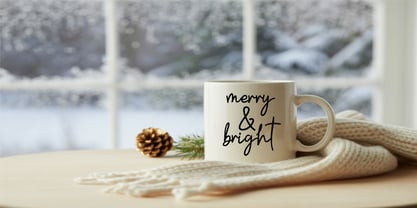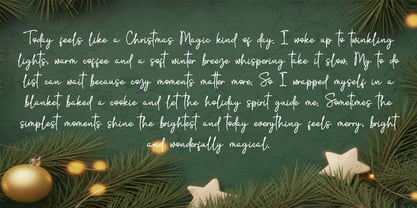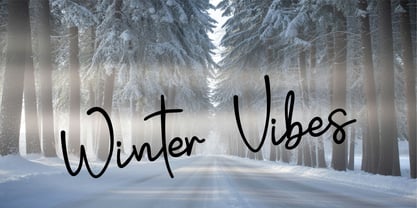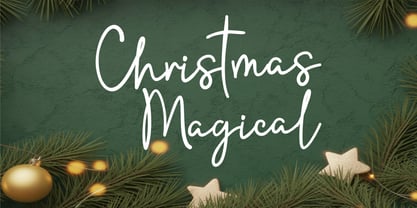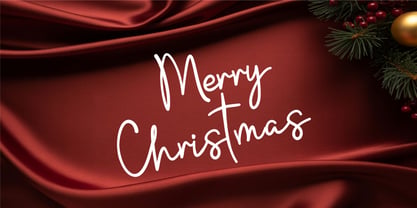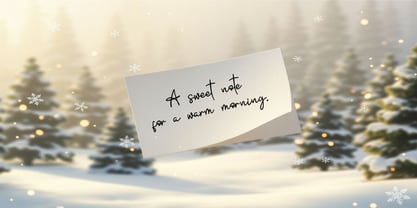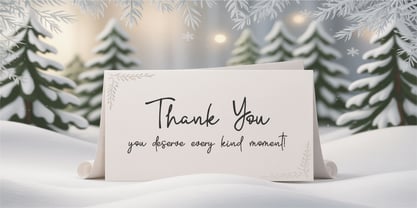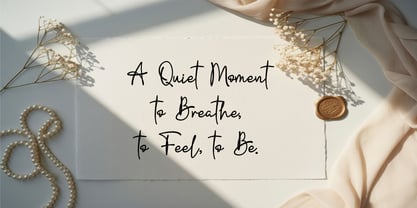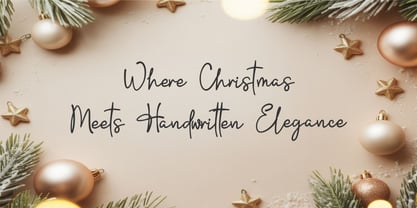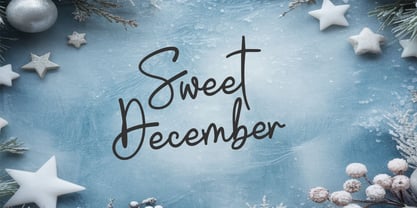
Christmas Magical
The Christmas Magical Font Family was designed by Tony Balios and published by Tonis Art Studio. Christmas Magical contains 1 styles. More about this family
Christmas Magical is a warm handwritten script that captures the charm, softness, and cozy elegance of the holiday season. Its tall, flowing lines and natural strokes create a handwritten look that feels personal and heartfelt, perfect for festive branding, greeting cards, seasonal packaging, and winter storytelling. Gentle curves and expressive characters add a touch of whimsy, making every word feel inviting and full of seasonal cheer. Whether used for headlines, quotes, or decorative text, Christmas Magical brings a bright, joyful atmosphere to any project, blending modern handwritten style with timeless Christmas spirit.
Christmas Magical